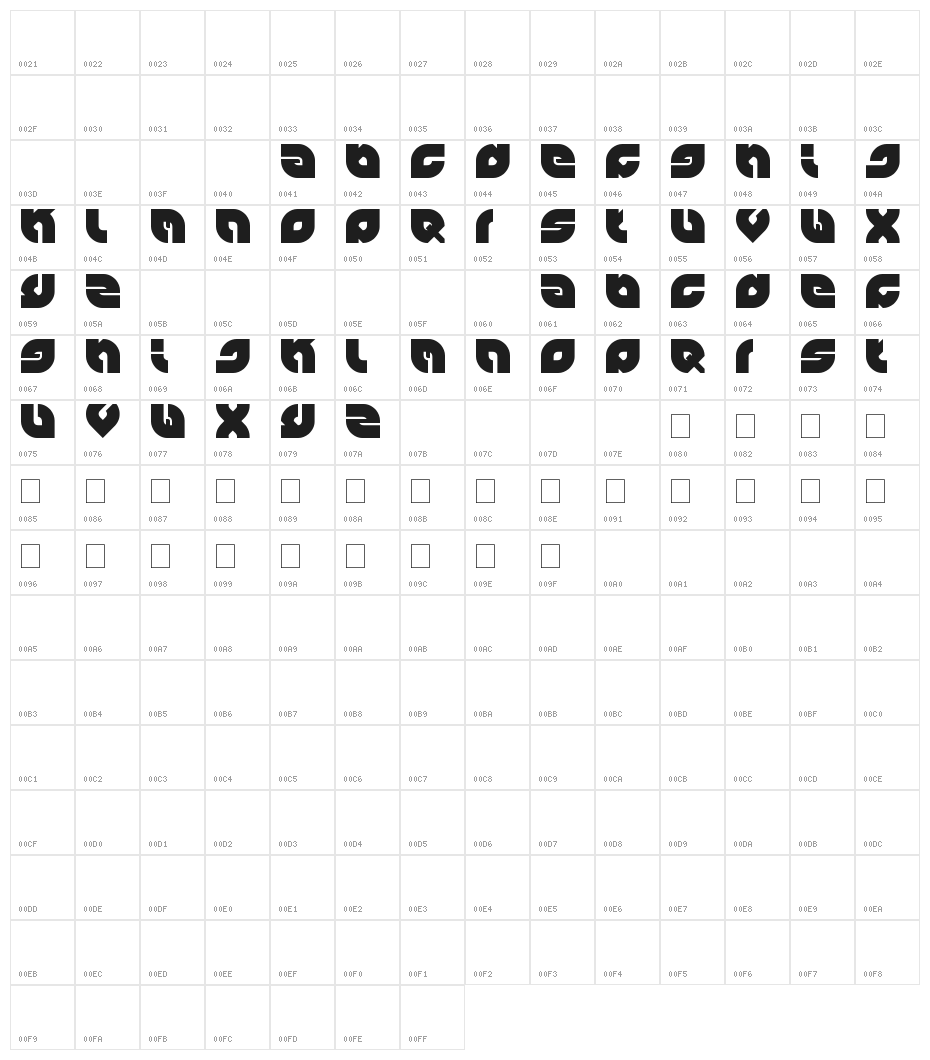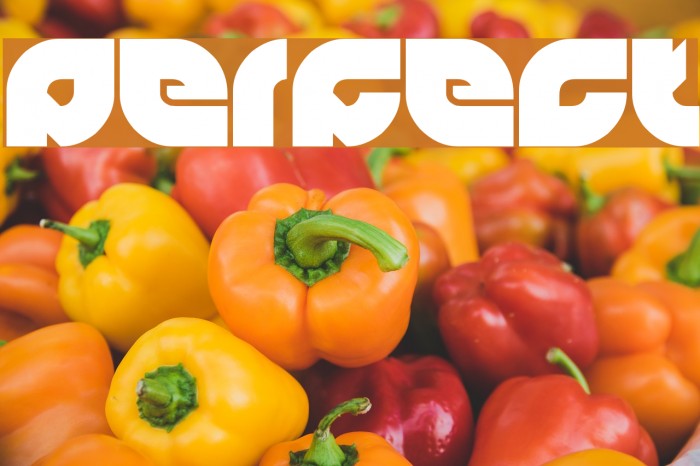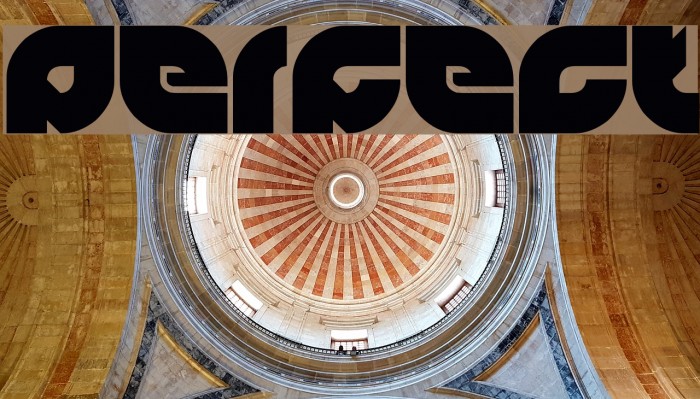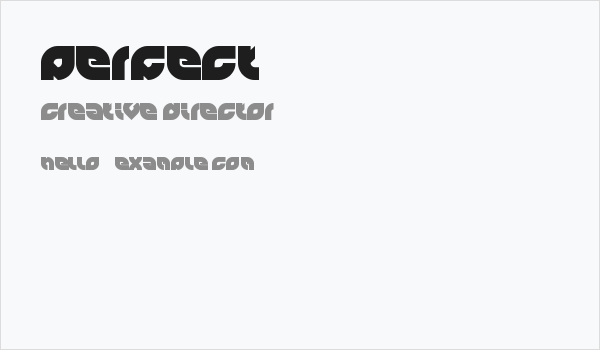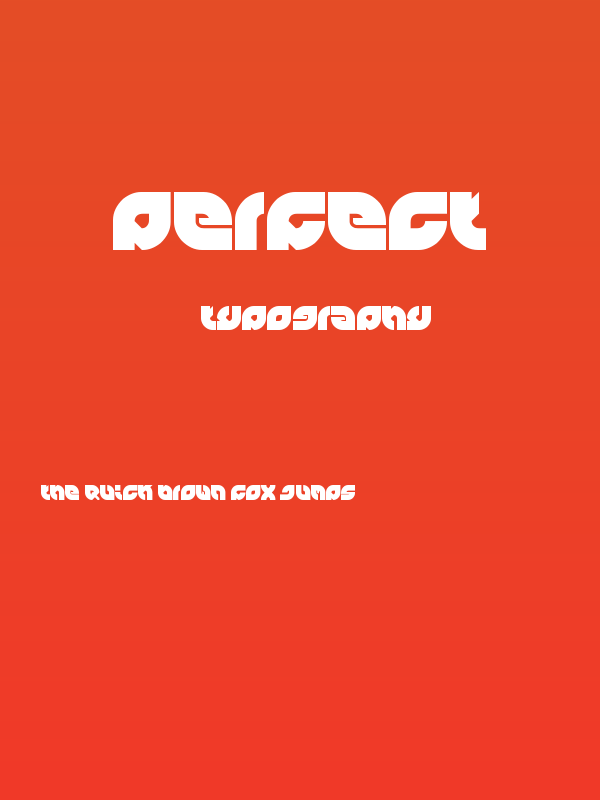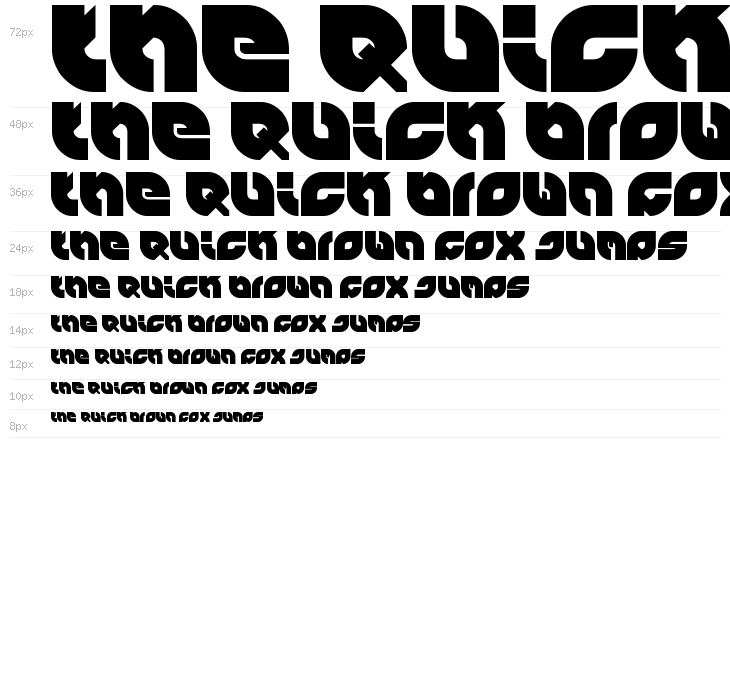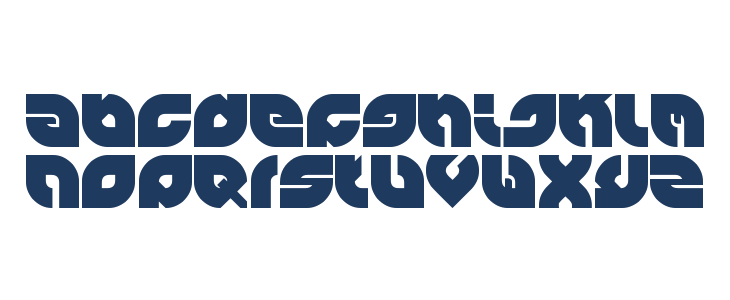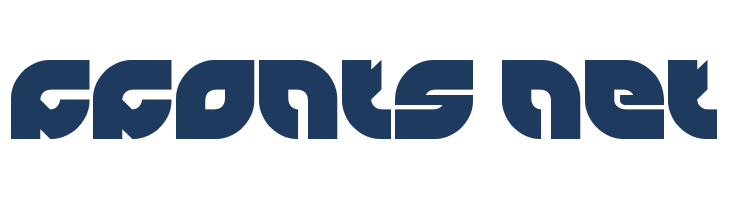
perfect Font
perfect Description
This font features a bold, geometric design with a futuristic and modern appeal. Each character is crafted with thick, uniform strokes that create a strong visual impact. The letters are constructed with a combination of straight lines and curves, forming a cohesive and striking appearance. The font's unique style is characterized by its blocky, angular shapes, which give it a distinctive and memorable look. The uniformity in stroke width across all characters contributes to its bold and assertive presence, making it suitable for attention-grabbing headlines and designs.
| Proposed Projects | Ideal for futuristic branding, tech-related projects, video game titles, and sci-fi themed posters. |